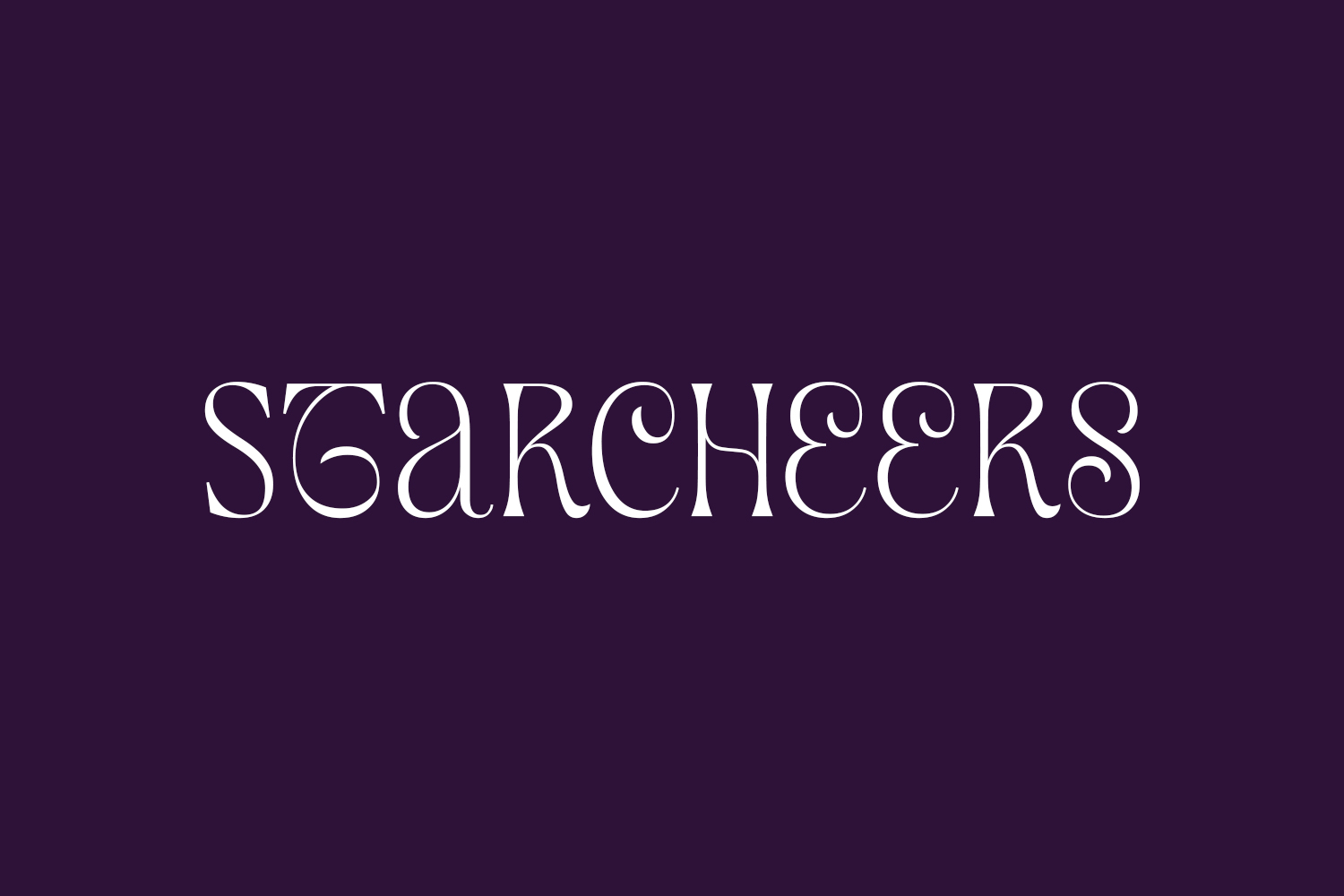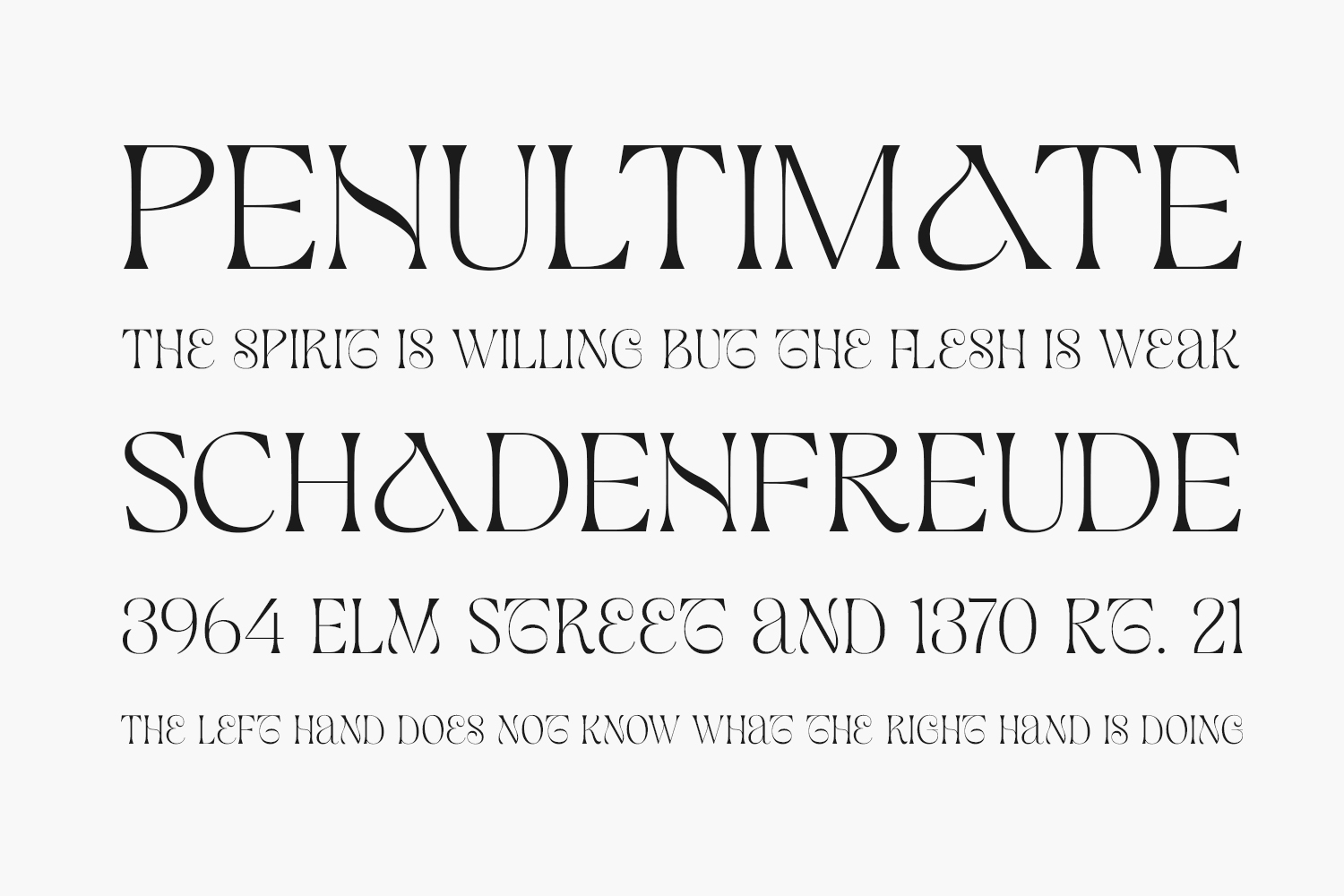
Starcheers – Free Bold Display Font for Sports & Gaming Designs
Starcheers was designed by Moka Type Studio and is an energetic display font with sharp angles and dynamic shapes, perfect for gaming and sports-related designs. Its aggressive yet balanced letterforms make it ideal for esports logos, tournament graphics, motivational posters, and action-packed branding. Available in OTF format with extended Latin support, this free font delivers professional-quality typography for high-impact visual projects.
Why Choose Starcheers?
- High-Energy Aesthetic: Angular cuts and dynamic proportions create movement.
Where to Use Starcheers?
This competitive font excels in:
- Esports Branding: Team logos, tournament graphics, gamer merch
- Streaming Assets: Twitch overlays, YouTube thumbnails, donation alerts
- Sports Marketing: Gym branding, athletic apparel, competition posters
- Action Promotions: Energy drink labels, extreme sports events, motocross
- Gaming UI: Custom HUD elements, score displays, leaderboards
Design Tips with Starcheers
Amplify Starcheers’ impact by pairing it with glowing effects or motion blur for dynamic compositions. Use high-contrast color schemes (neons against dark backgrounds) typical in gaming aesthetics. For balanced designs, combine with simple sans-serifs like Rajdhani. The font works exceptionally well with hexagonal patterns, speed lines, and digital glitch effects.